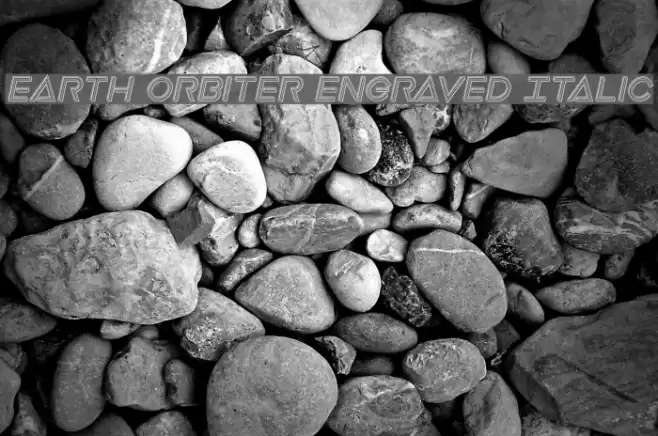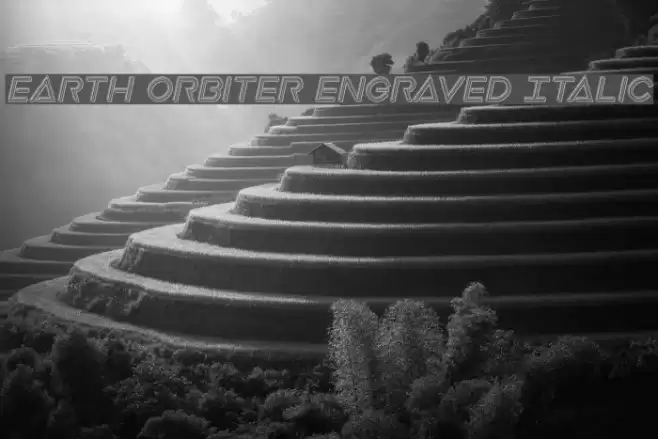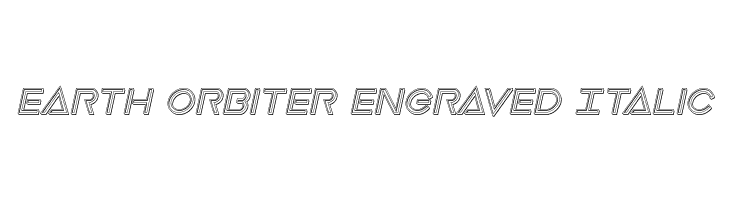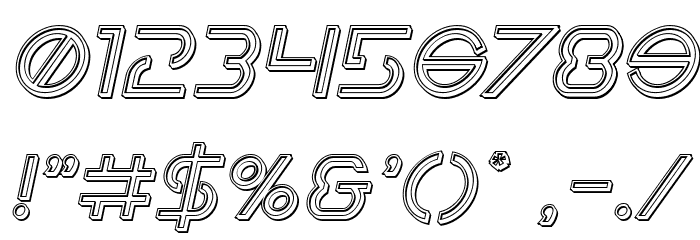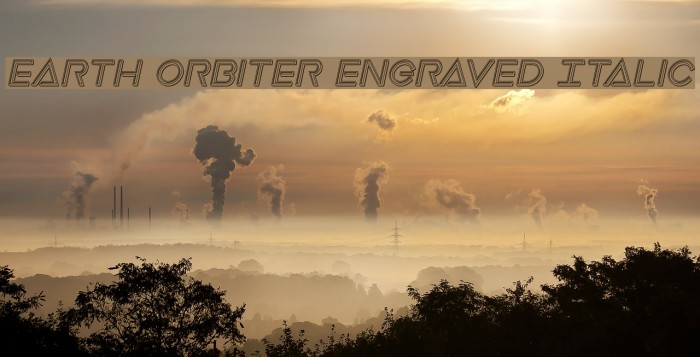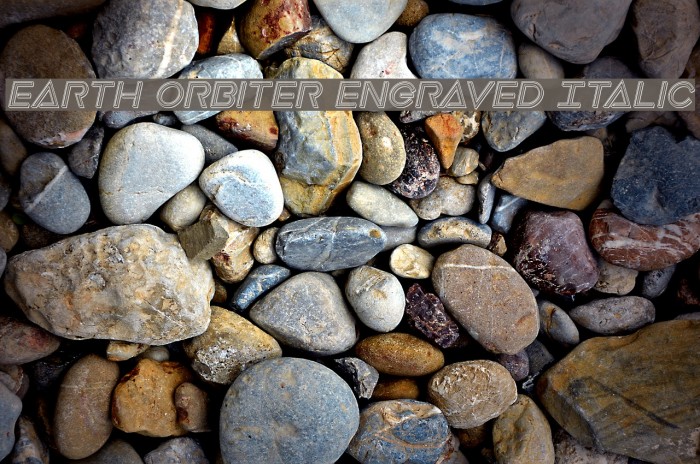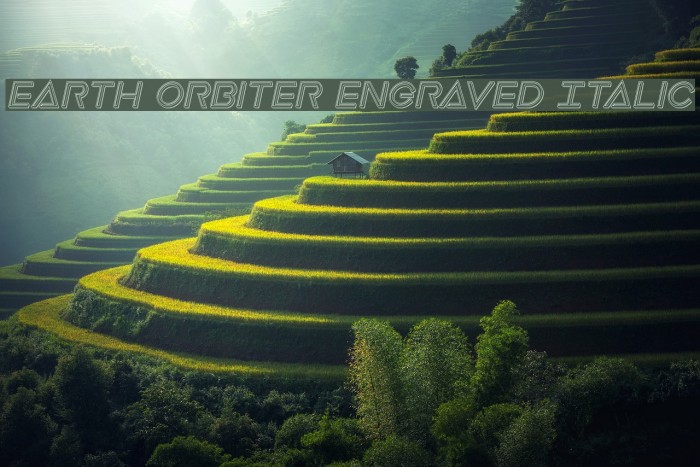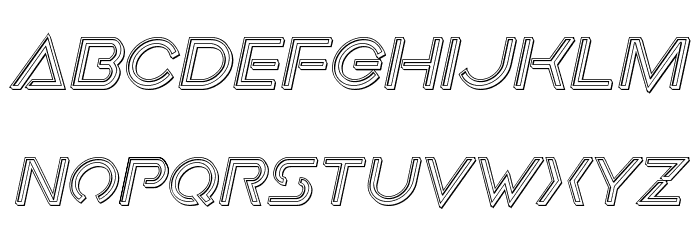
Earth Orbiter Engraved Italic Font
Earth Orbiter Engraved Italic Description
This font features a futuristic and geometric design with an engraved effect, characterized by its bold, angular lines and italicized slant. The letters are outlined with a double line, creating a sense of depth and dimension. Each character maintains a consistent width, contributing to a uniform appearance. The uppercase and lowercase letters share a similar style, enhancing the cohesive look. The numerals and special characters are designed to match the angular and modern aesthetic, making them suitable for contemporary and tech-oriented projects.
A futuristic, engraved, italic font with bold, angular lines from Sci-fi fonts.
- Proposed Projects: Ideal for sci-fi themed designs, tech branding, modern posters, and digital interfaces.